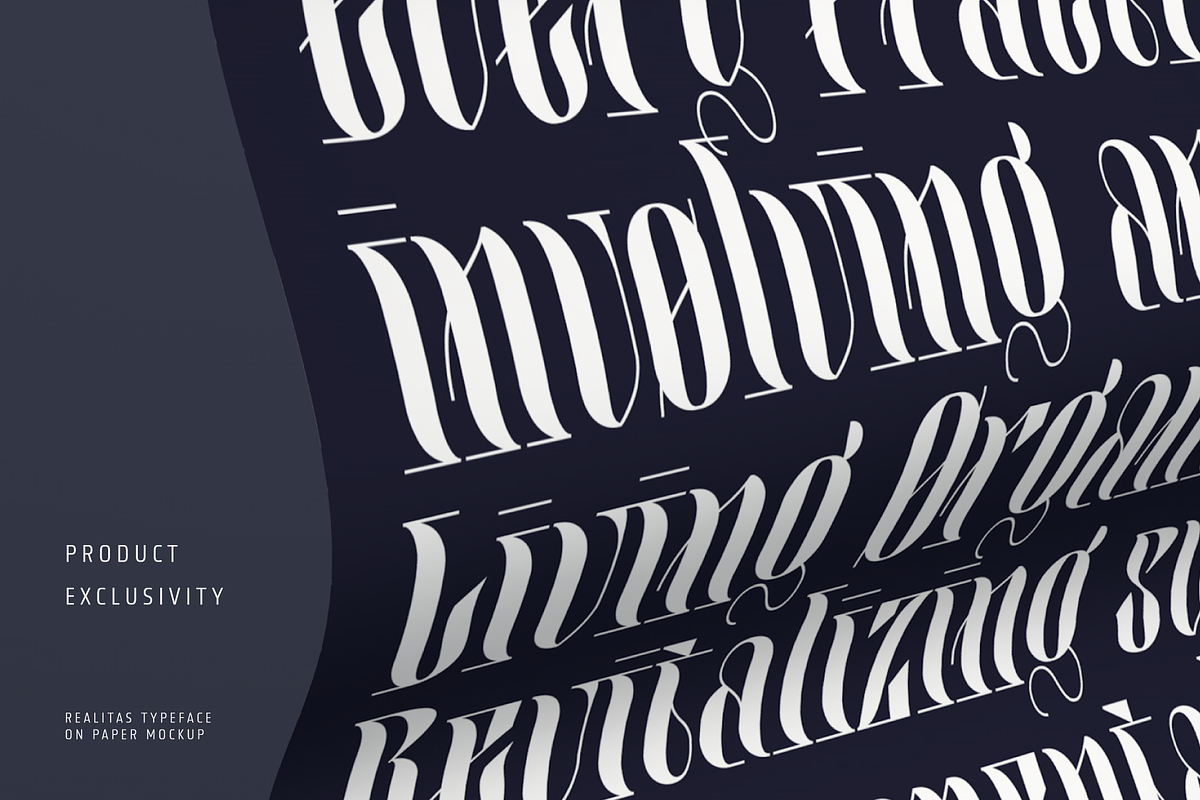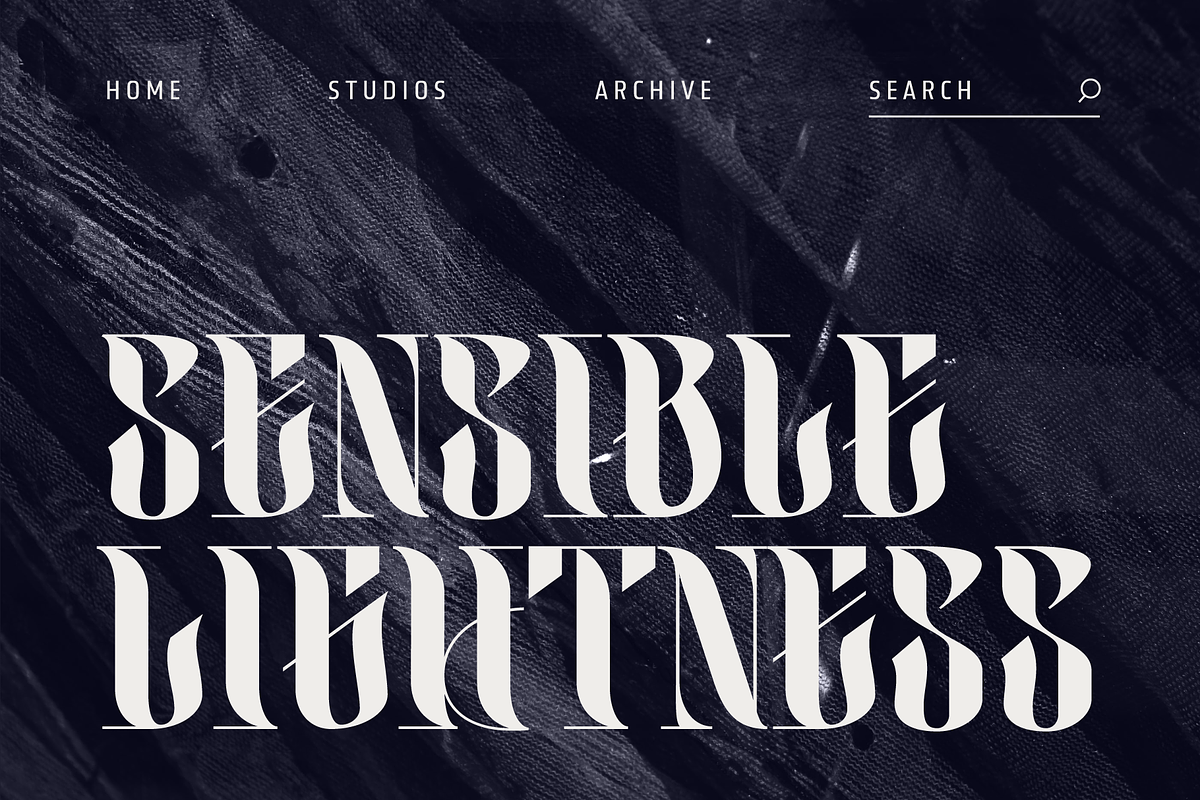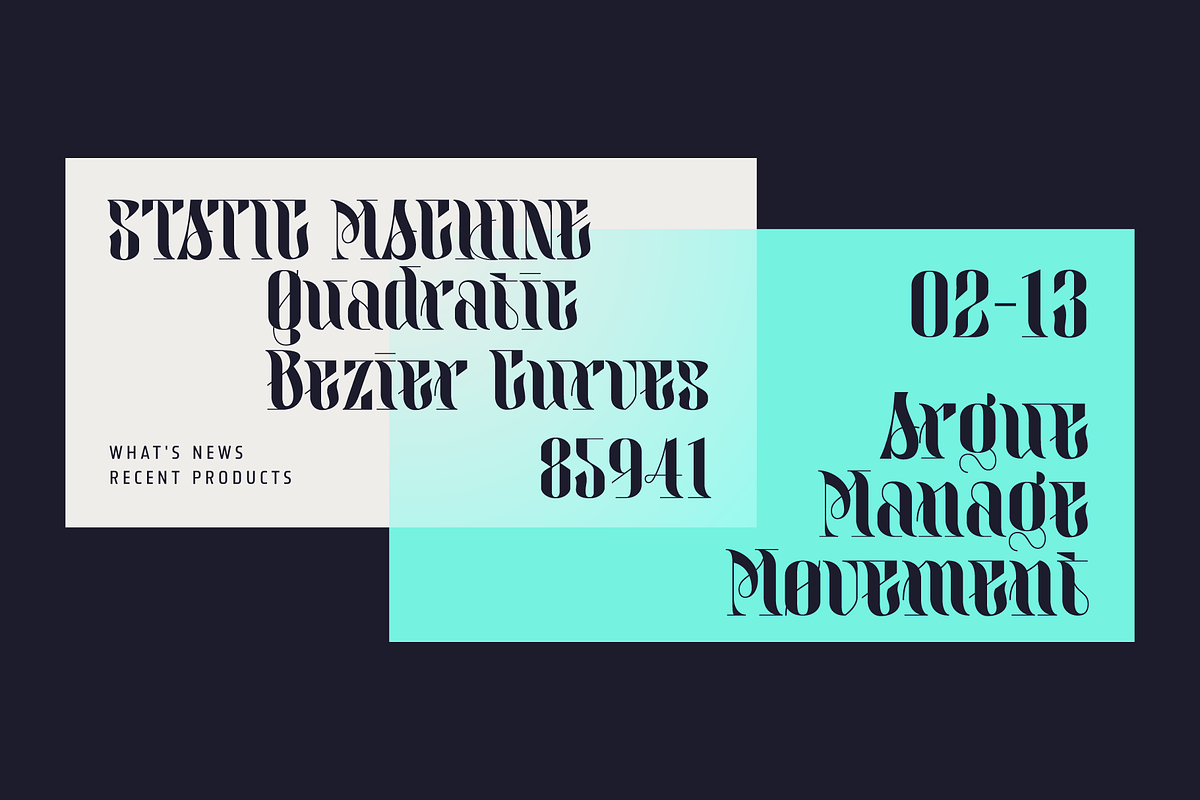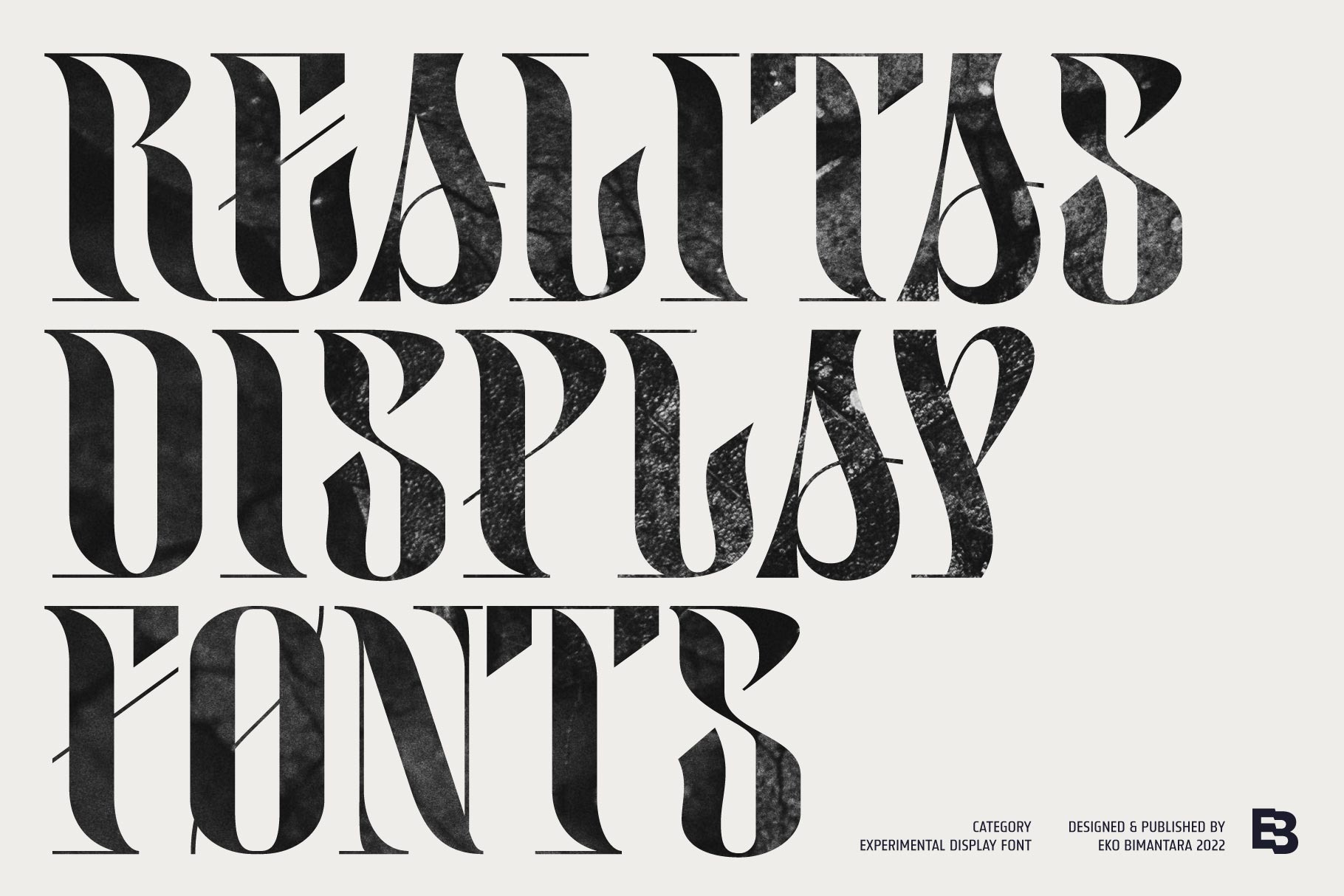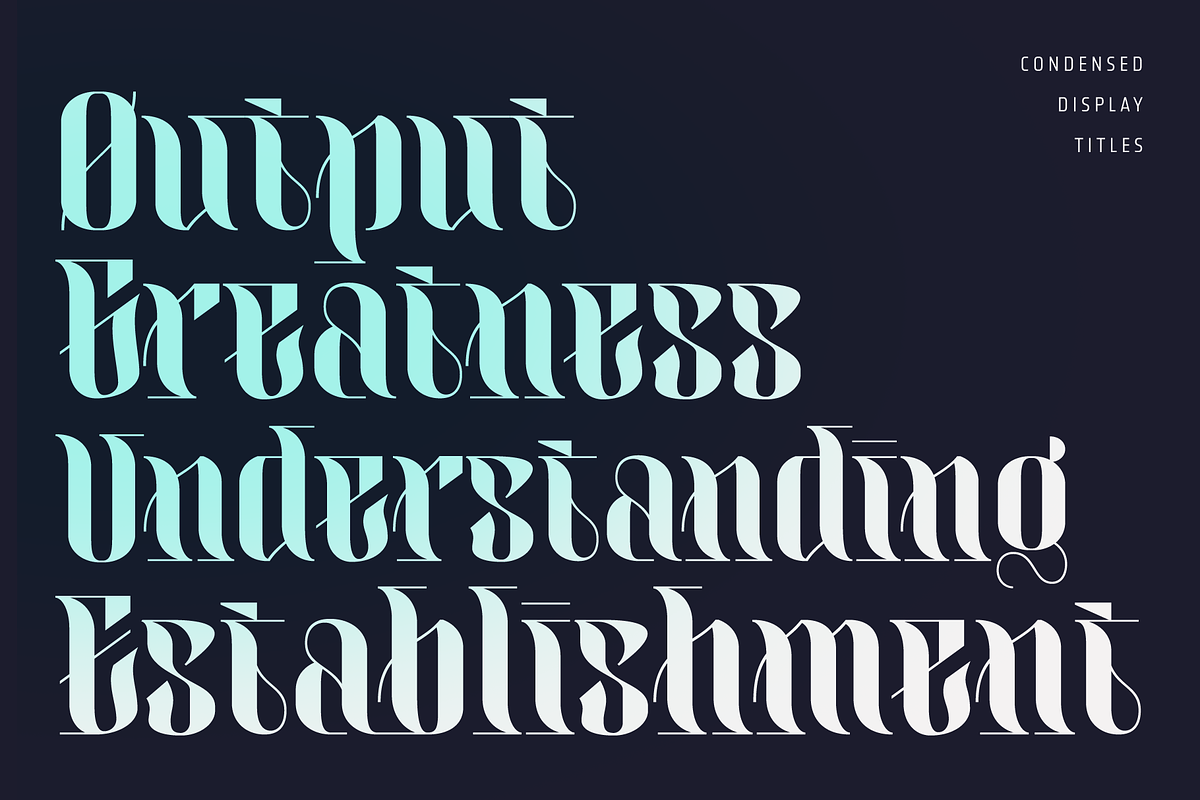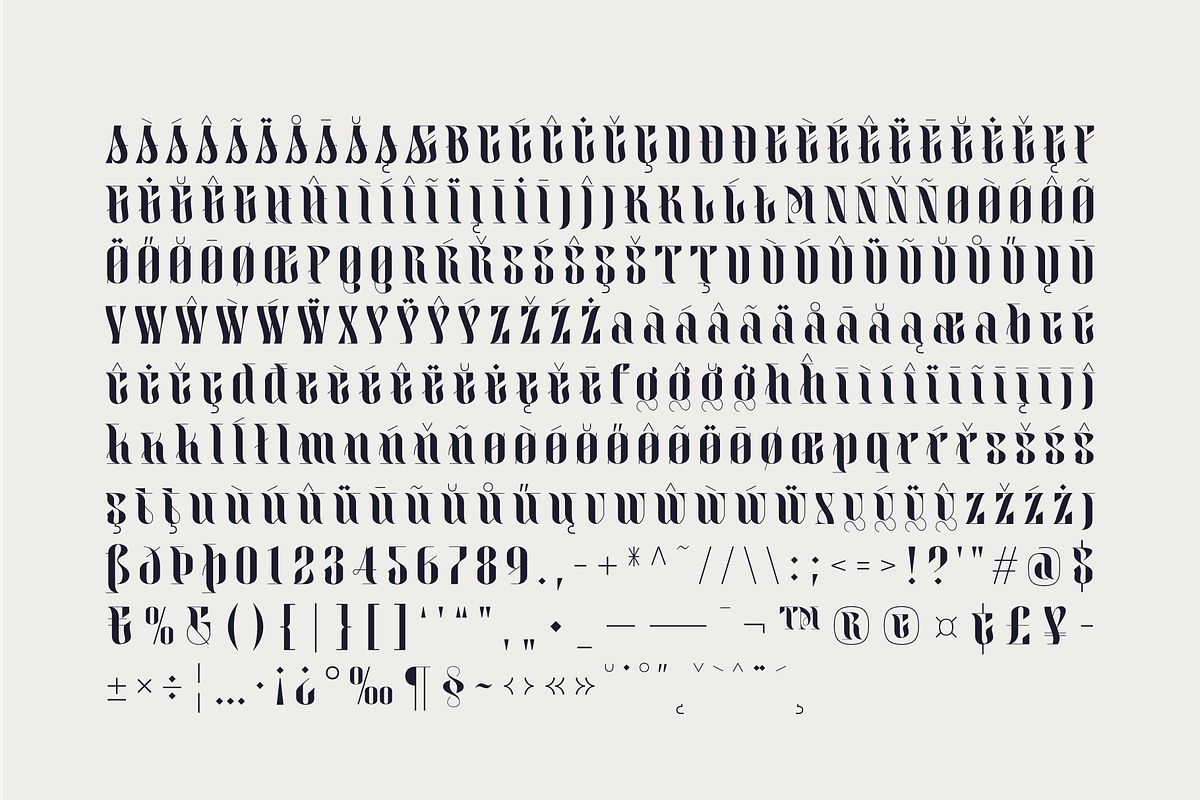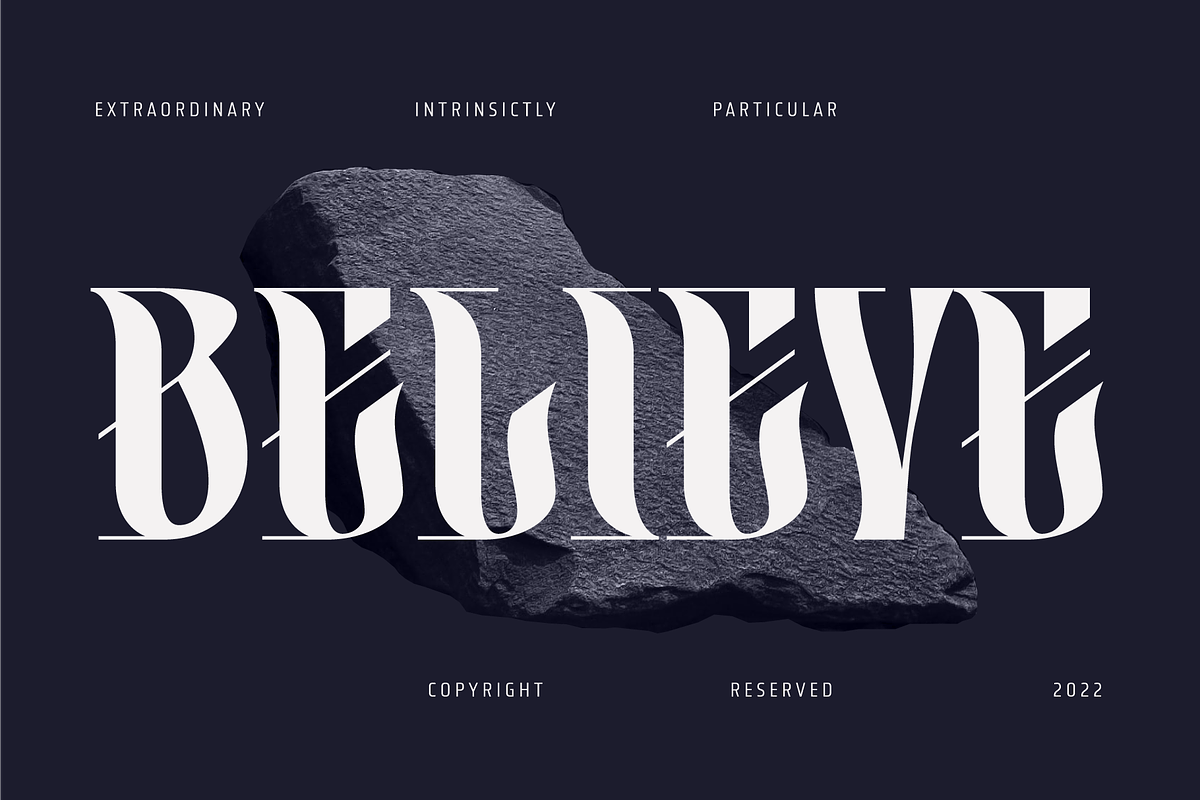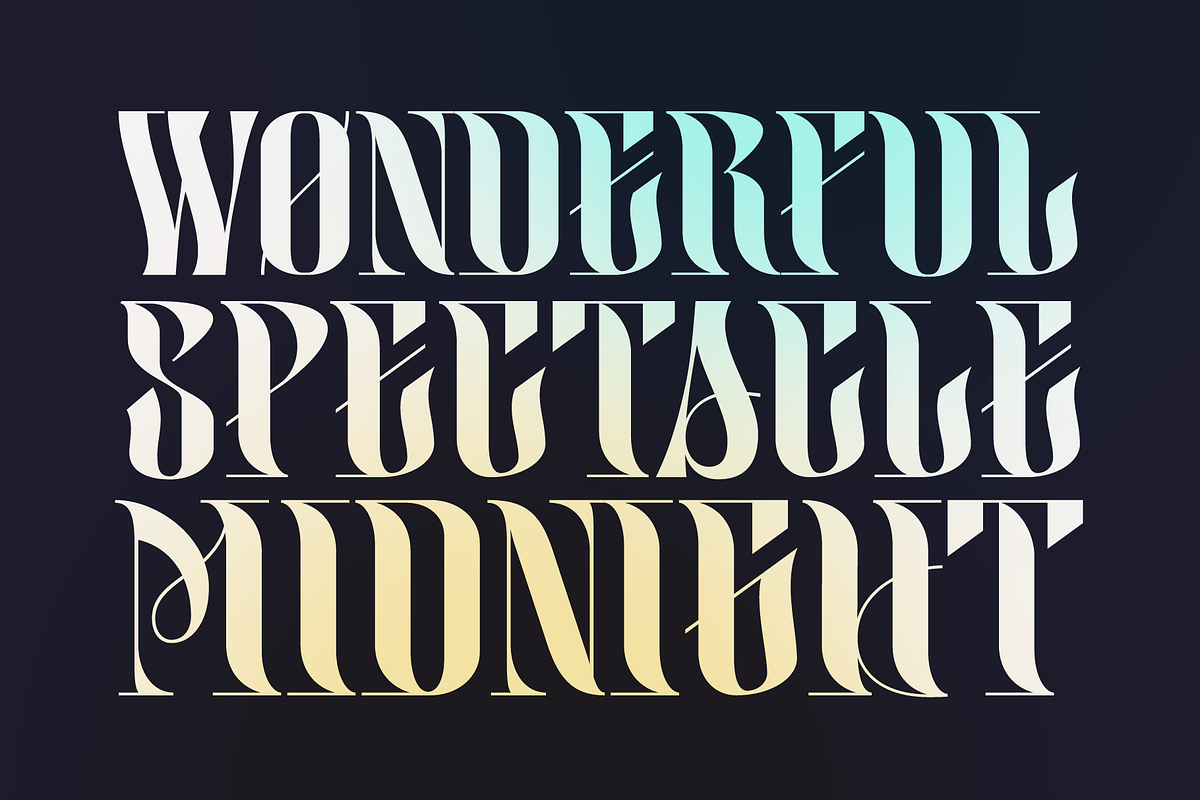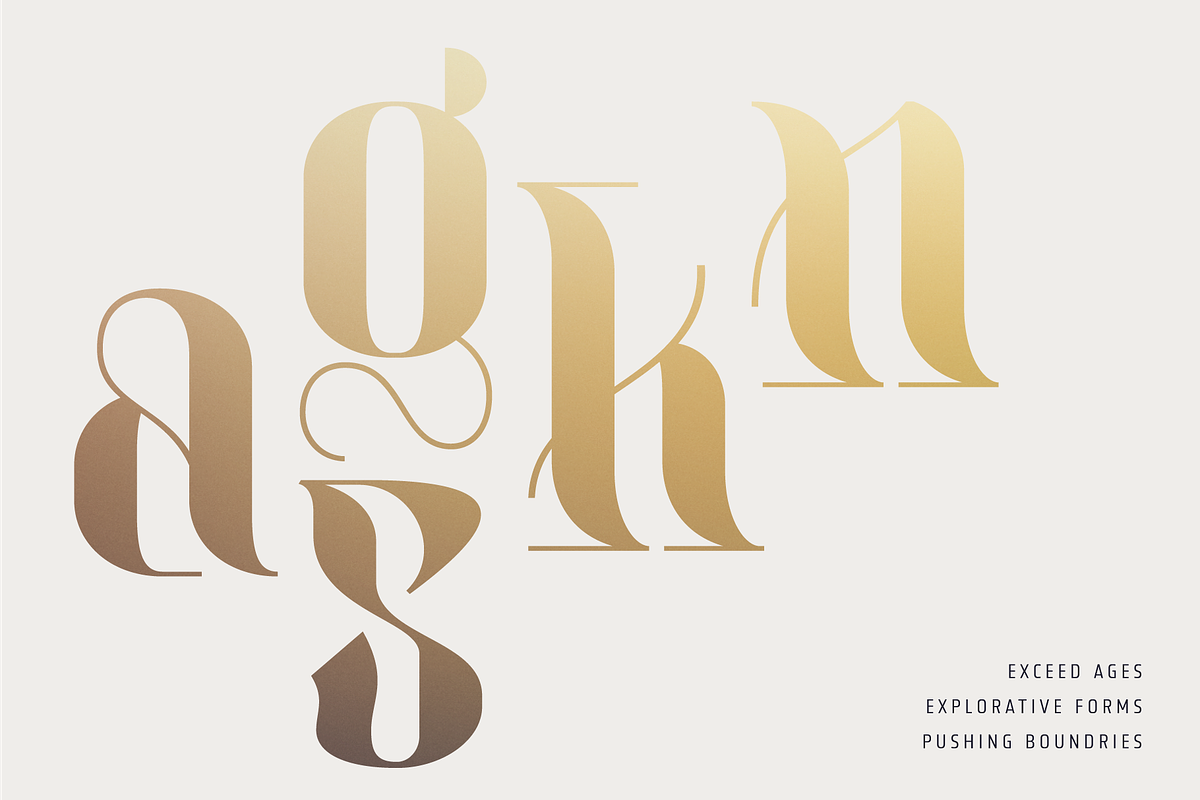
Realitas; Unique Experimental Font
Realitas is a unique and contemporary display font designed by Eko Bimantara in August 2022. It was created with the intention of exploring new boundaries in letterform design, resulting in a typeface that is both bold and expressive. With over 300 glyphs that support a broad range of Latin languages, Realitas is perfect for designers looking to add a modern and experimental touch to their creative projects.
Realitas is a perfect example of how exploring new boundaries can result in something truly remarkable. Its unique and explorative design sets it apart from other display fonts on the market, making it a valuable addition to any designer’s toolkit. Whether used in branding or advertising, Realitas is sure to leave a lasting impression on viewers with its bold and expressive letterforms.